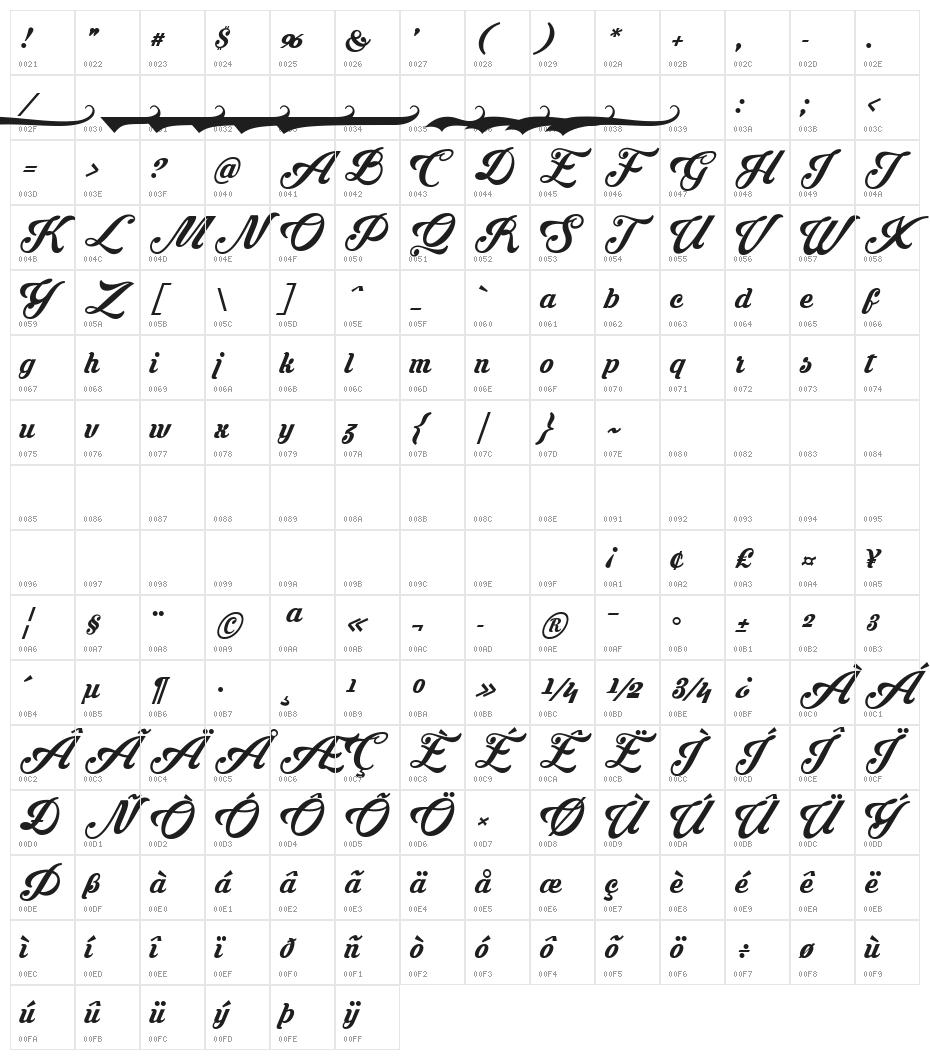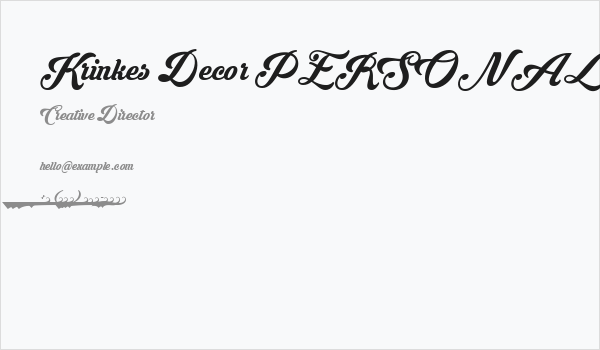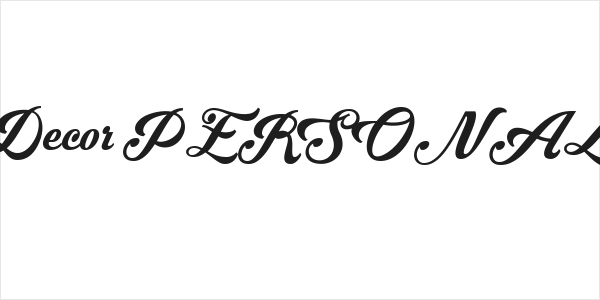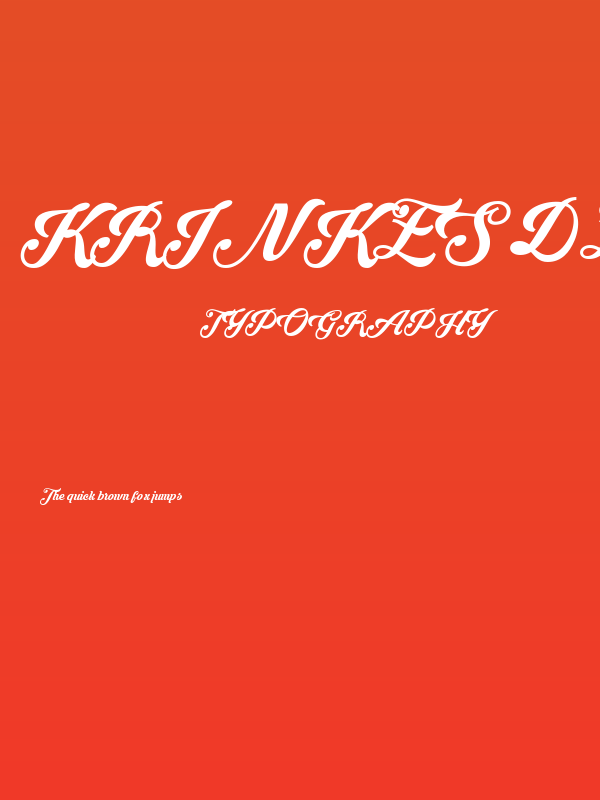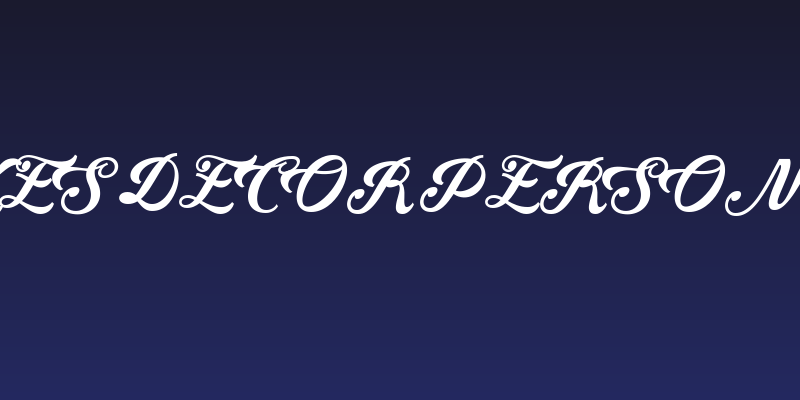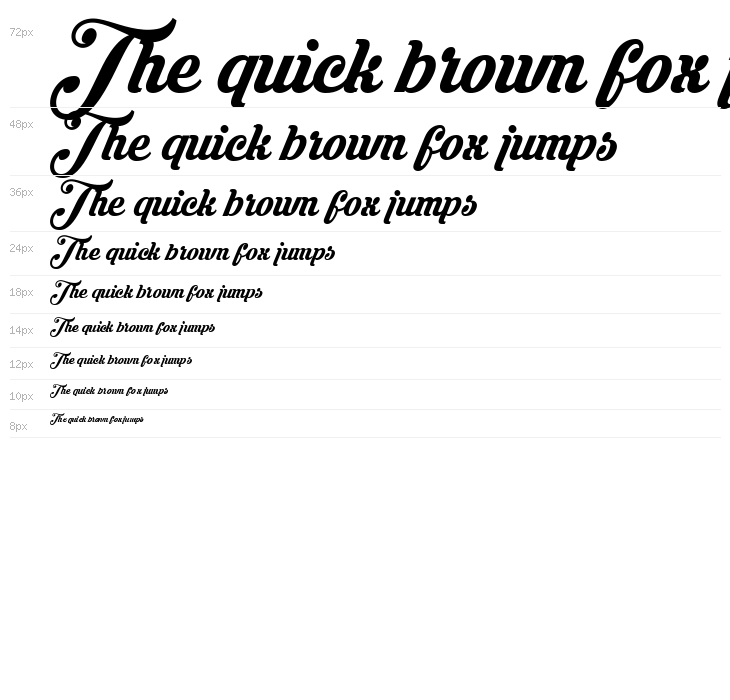
Krinkes Decor PERSONAL USE Font
Krinkes Decor PERSONAL USE Description
This font features an elegant and decorative script style, characterized by its flowing and interconnected letterforms. The uppercase letters exhibit a classic cursive flair with intricate loops and swashes, while the lowercase letters maintain a bold and smooth appearance, offering a harmonious balance between readability and artistic expression. The numerals and special characters continue this theme, providing a cohesive look across all glyphs. The font's ornate design is ideal for projects that require a touch of sophistication and creativity.
| Proposed Projects | Ideal for wedding invitations, greeting cards, branding, and decorative signage. |